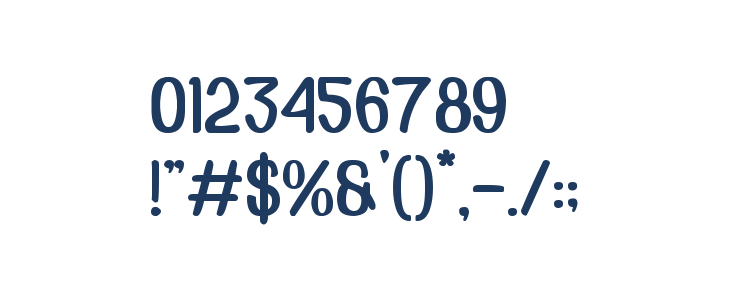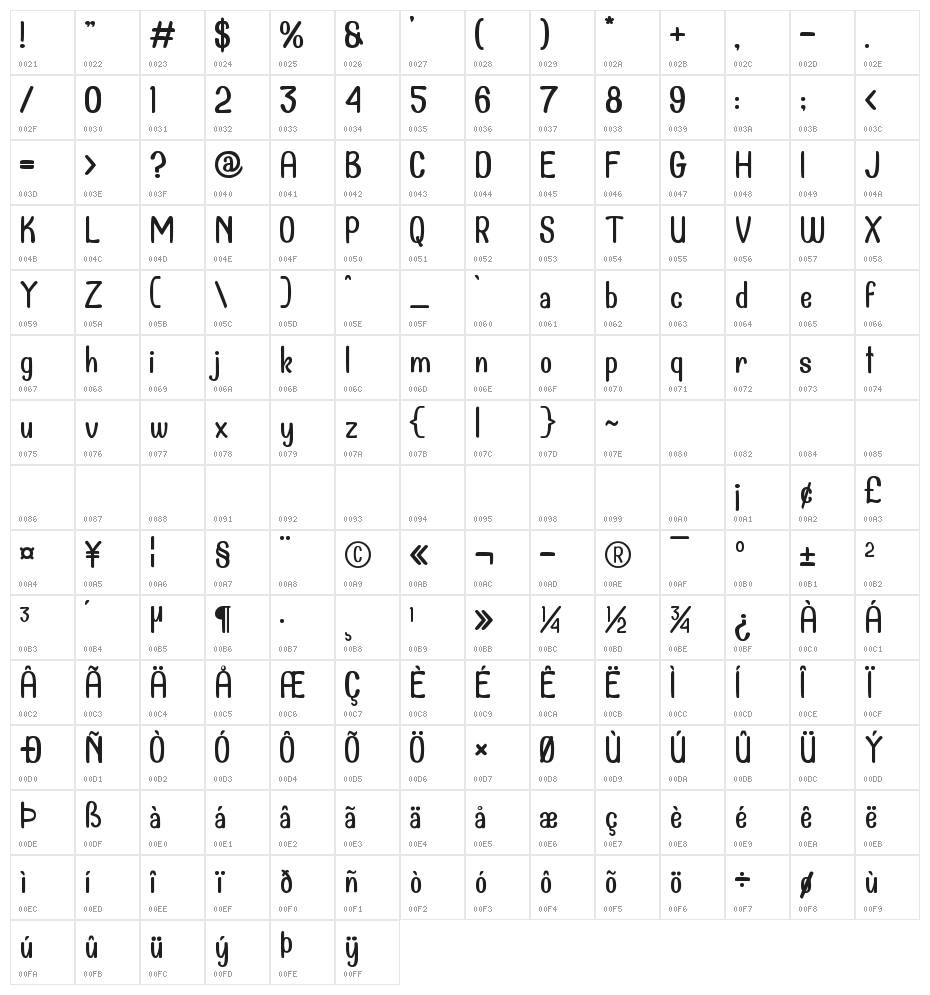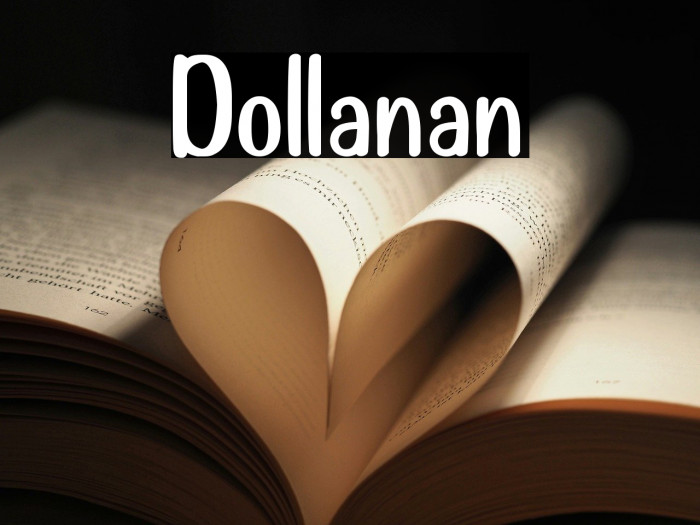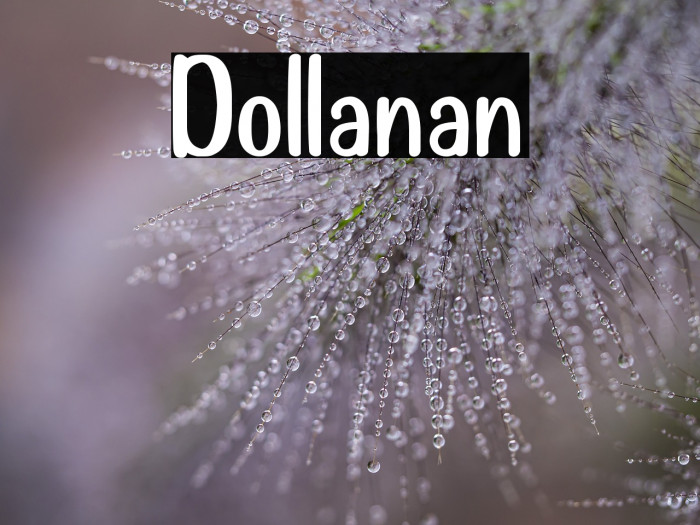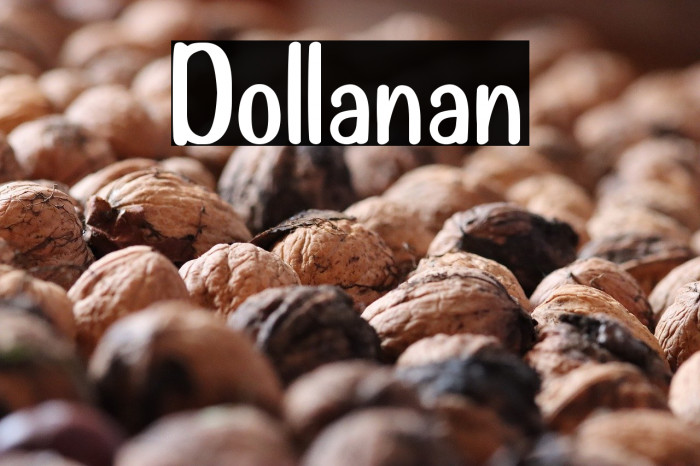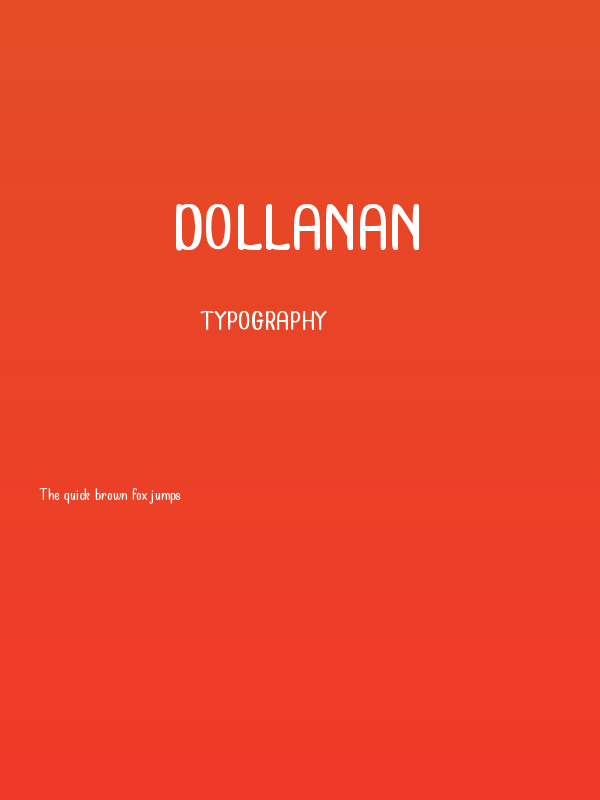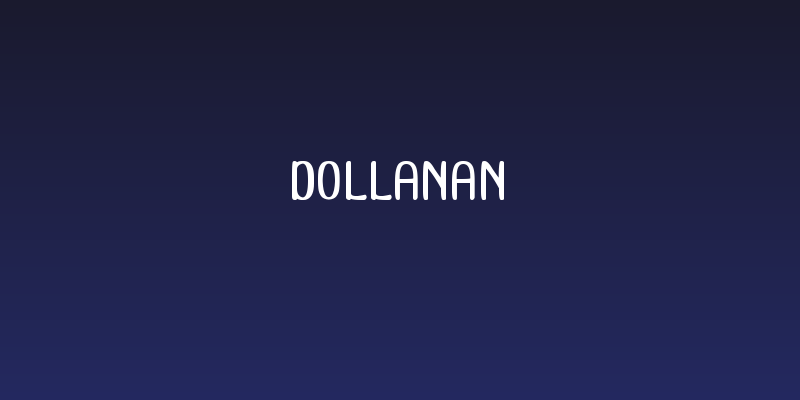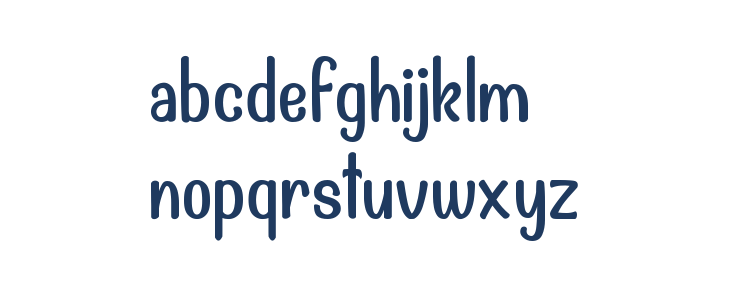
Dollanan Font
Dollanan Description
This playful and rounded font features a friendly and approachable style, characterized by its smooth curves and consistent stroke width. The letters are evenly spaced, providing a clean and readable appearance. The uppercase and lowercase letters maintain a uniform height, contributing to its balanced look. The numerals and special characters are designed with the same rounded aesthetic, ensuring cohesion across all elements. This font's simplicity and charm make it versatile for various design applications.
| Use Case | Headlines, Logos, Casual text |
| Proposed Projects | Ideal for children's books, playful branding, greeting cards, and casual invitations. |